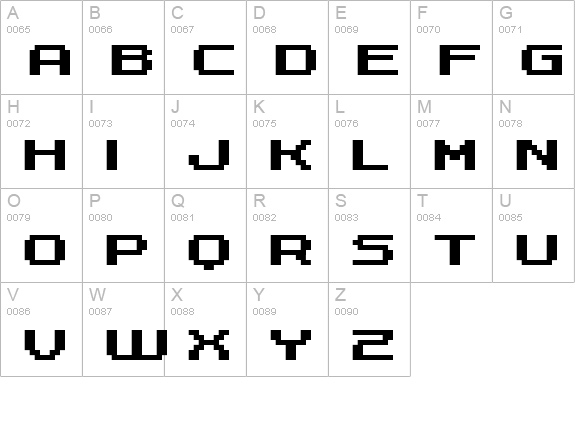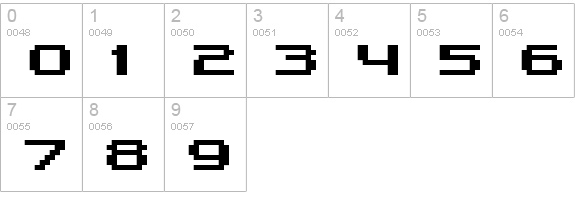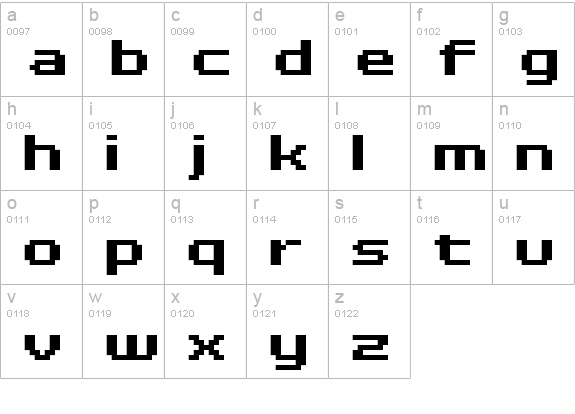
FFF Dreamer Bold Extended Font Details
FFF Dreamer Bold Extended is a strong, high-contrast, extended-width variant in the FFF typeface family \xE2\x80\x94 well suited to headlines, attention-grabbing titles, and strong calls-to-action.
Introducing the FFF Dreamer Bold Extended font, a stunning typeface that exudes creativity and versatility. This bold and extended font is perfect for making a statement in your designs, whether it be for posters, logos, headlines, or any other project that requires a touch of boldness. With its sleek lines and modern aesthetic, FFF Dreamer Bold Extended is sure to capture attention and leave a lasting impression. The font's unique style sets it apart from other typefaces, making it a standout choice for designers looking to add a touch of flair to their work. The best part? FFF Dreamer Bold Extended is available for free download at FontsMarket.com, giving you easy access to this eye-catching font for all your design needs. Don't miss out on the opportunity to enhance your projects with this stunning typeface - download FFF Dreamer Bold Extended today and let your creativity soar!